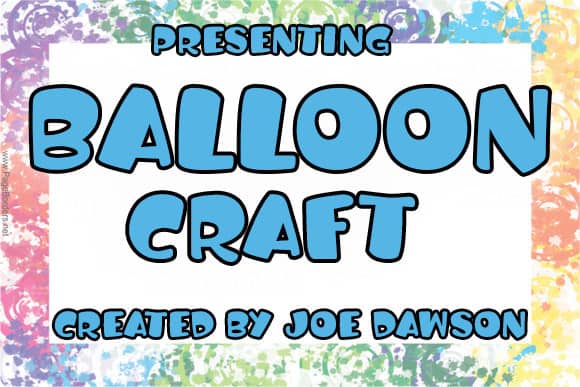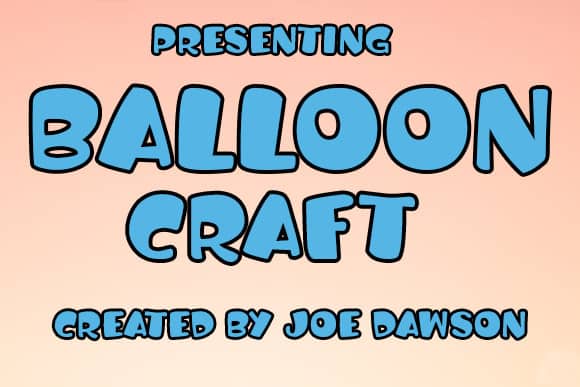
Balloon Craft Display Font
Balloon Craft Display Font is a cute and playful display typeface. It will add an incredibly joyful touch to your designs. Made from font designer named Joe Dawson. It’s a bold, fun, and authentic display font. Get creative with its childlike playfulness, and use it to brighten up any kids and school project!. Add this beautiful display font to each of your creative ideas and notice how it makes them stand out!